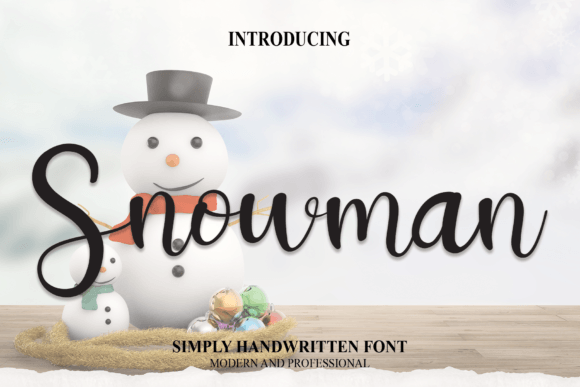
Snowman Handwritten Font β Fun and Friendly Script
The Snowman Handwritten Font is a cheerful and stylish script typeface designed to bring charm and warmth to your creative projects. With its smooth handwritten strokes and approachable look, it adapts seamlessly to both personal and professional uses. Whether youβre designing invitations, posters, or social media graphics, this font ensures your projects stand out with friendliness and style.
A Script with Playful Personality
The Snowman Handwritten Font blends casual handwritten strokes with a lighthearted design. Its balanced shapes make it approachable and fun, while still maintaining professional clarity. Because of this, it works beautifully across digital and print designs, giving each project a unique touch.
One of the best uses of the Snowman Handwritten Font is in invitations and greeting cards. Wedding stationery, birthday notes, and thank-you cards look more heartfelt and engaging when created with this font. At the same time, it adapts well to posters, logos, and product packaging, where a handwritten script adds originality and creativity.
The Snowman Handwritten Font adapts effortlessly to many different creative needs. From social media graphics and logos to decorative quotes and DIY crafts, it provides a handwritten charm that feels both modern and timeless. Its versatility makes it a valuable addition to your design collection.
Why Designers Love Snowman Font
Designers love the Snowman HandwrittenFont because it balances playfulness with practicality. Its friendly handwritten strokes make projects look warm and inviting, while its readability ensures professional-quality results. This makes it a must-have font for many design styles.
In summary, the Snowman HandwrittenFont is a fun, friendly, and versatile script typeface. With its approachable handwritten strokes, quick installation, and wide usability, it is ideal for invitations, posters, crafts, and branding. Donβt miss the chance to download Snowman HandwrittenFont and add cheerful handwritten charm to your next project.